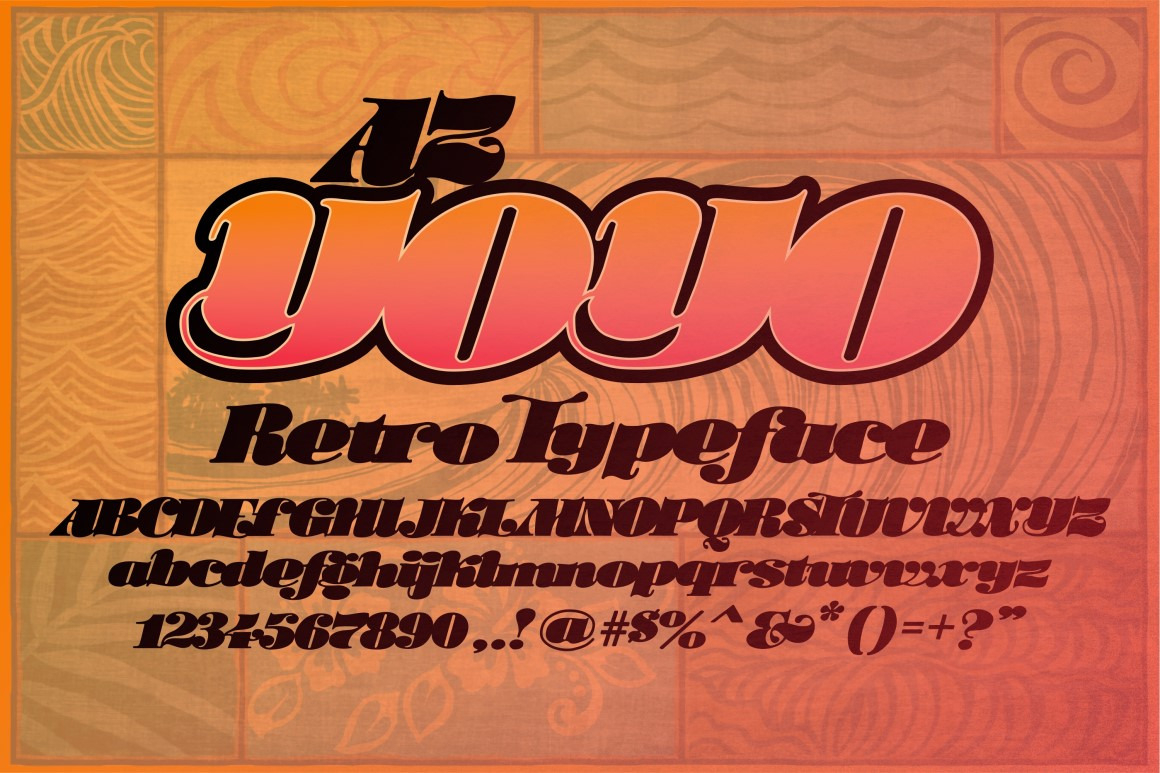
AZ Yo Yo
AZ Yo Yo is a display serif font family published by Artist of Design.
AZ YoYo Opentype font features upper and lower case characters with Latin -1 support and all standard US punctuation. AZ YoYo was inspired from a ‘70’s vintage skateboard logo style. This font was designed for use as a display headline or sub headline.